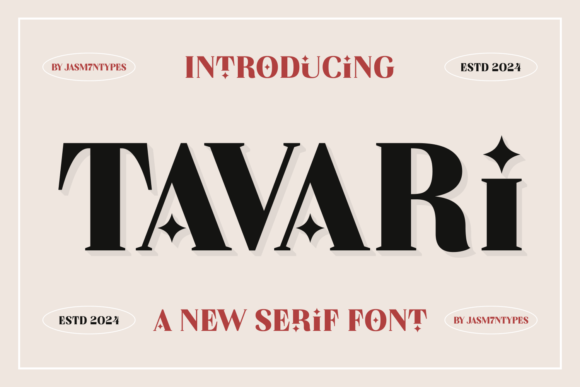
Tavari
The first glance at Tavari is a quiet confidence. It carries the weight of tradition but with a modern twist. The letters feel grounded, almost like they belong in a well-worn book or a carefully curated editorial spread. There’s a subtle elegance to its curves and a strong presence in its structure. Tavari isn’t flashy, but it commands attention without needing to shout. Its personality is refined, professional, and slightly timeless—perfect for projects that require both sophistication and approachability.
Tavari is a serif font, which means it has those classic flourishes and serifs that give it a sense of maturity and reliability. This makes it ideal for branding work where trust and credibility are key. Whether you're designing a logo, crafting a brand identity, or creating packaging, Tavari brings a level of polish that feels intentional and well-considered. It's not just about looking good—it's about making a statement that aligns with the values of the brand it represents.
In real-life design scenarios, Tavari performs admirably across a range of applications. For logo design, it offers a versatile base that can be scaled down or stylized without losing its essence. Its clean lines and balanced proportions make it a strong contender for minimalist logos or more ornate brand marks. In editorial design, Tavari adds a touch of class to headlines and subheadings, enhancing readability while maintaining visual interest. It pairs well with sans serif fonts for contrast, and its versatility allows it to adapt to different design styles—from modern typography to more traditional layouts.
When it comes to packaging design, Tavari brings a sense of quality and craftsmanship. It works especially well on premium products, where the font itself becomes part of the brand experience. On product labels, it strikes a balance between being legible and distinctive. However, it’s important to test it in black and white, as some of its serifs may not translate as effectively in monochrome environments. Always check small-size readability, especially if the font will be used on labels or signage where space is limited.
For web design and digital assets, Tavari holds up well in most contexts. It’s suitable for website headers, blog graphics, and social media content. But it’s not always the best choice for long blocks of text. Its serifs can sometimes make reading dense paragraphs feel heavier than a sans serif alternative. That said, when used strategically—such as for headlines or call-to-action buttons—it can enhance visual hierarchy and guide the viewer’s eye through the content.
Tavari is also a great option for social media graphics and digital ads. Its clean aesthetic fits well with contemporary design trends, and it can easily blend into both minimalist and more decorative layouts. When paired with other fonts, such as a sans serif for body text or a script for accents, Tavari can add depth and character to a design. However, it should be used carefully in supporting text, where clarity is paramount.
One thing to keep in mind is that Tavari is a display font, which means it’s designed for impact rather than extended use. While it can be used in large headlines or short phrases, it’s less suited for long-form content. This makes it ideal for invitations, posters, and promotional materials where the font plays a central role in the design. It’s also worth noting that Tavari’s decorative elements can sometimes overpower simpler designs, so it’s important to use it with intention and restraint.
Designers should also consider the context in which Tavari will be used. If the project involves a lot of white space or minimalism, Tavari can be a strong choice. But if the design requires a more casual or playful tone, it might not be the best fit. Always test the font on real mockups to see how it interacts with other elements and how it affects the overall visual balance.
In summary, Tavari is a thoughtful serif font that brings a sense of refinement and professionalism to any project. It’s a versatile typeface that can be used in logo design, editorial design, packaging, and more. With careful application, it can elevate the visual mood of a brand and create a lasting impression. As a designer, it’s important to understand its strengths and limitations and to use it in a way that complements the overall design strategy. Tavari is not just a font—it’s a design tool that can help shape the identity of a brand or project with precision and purpose.